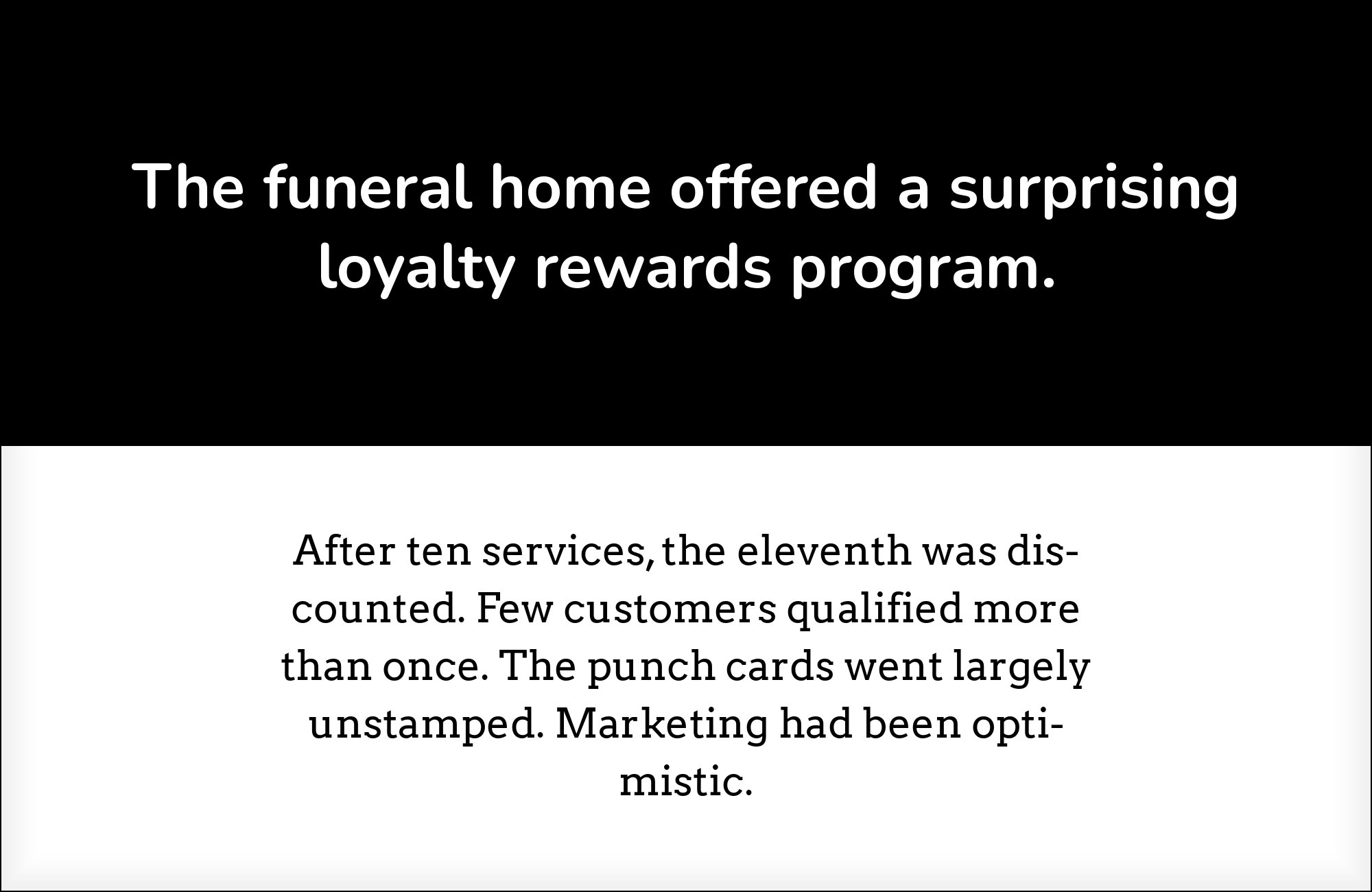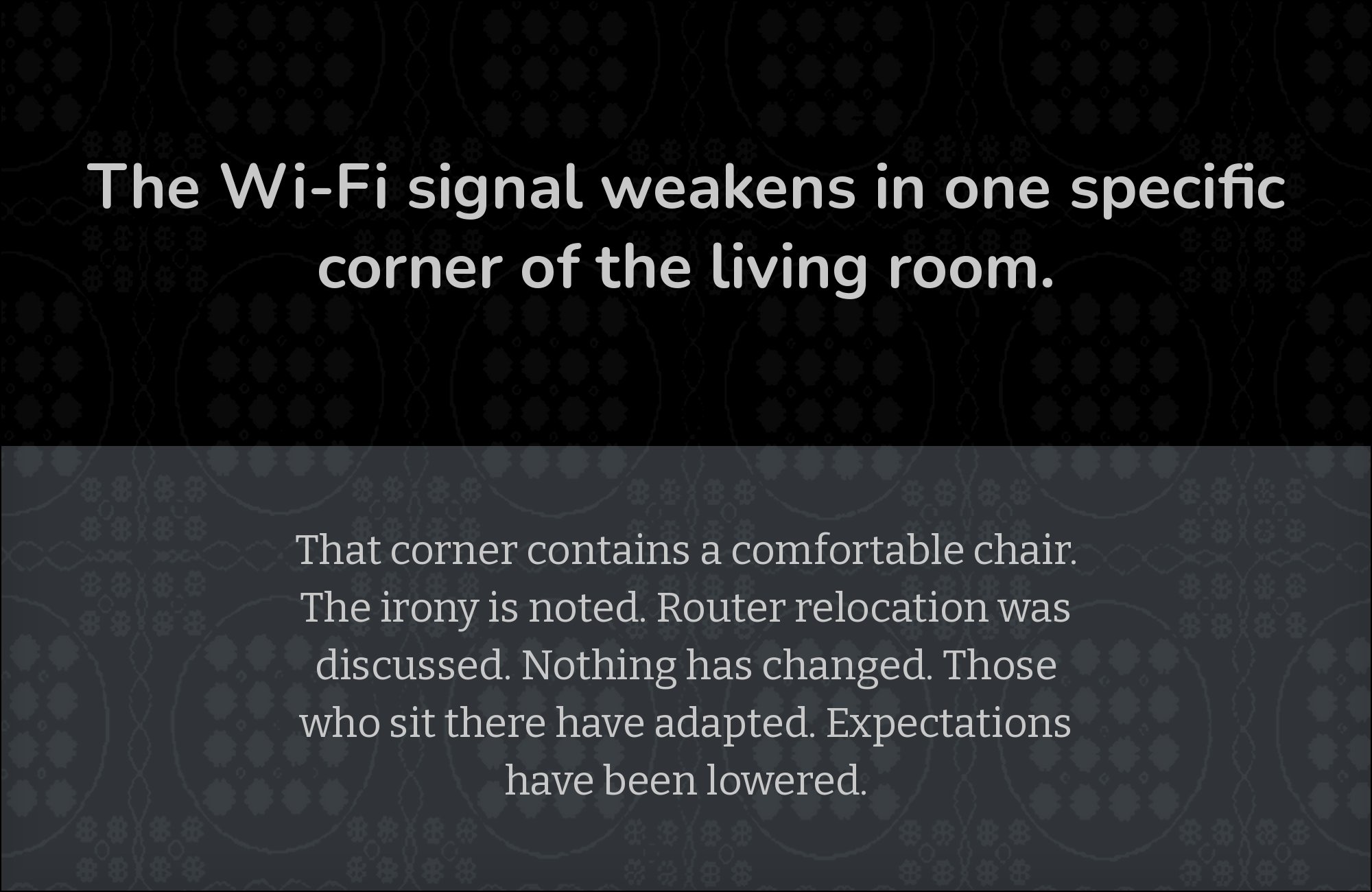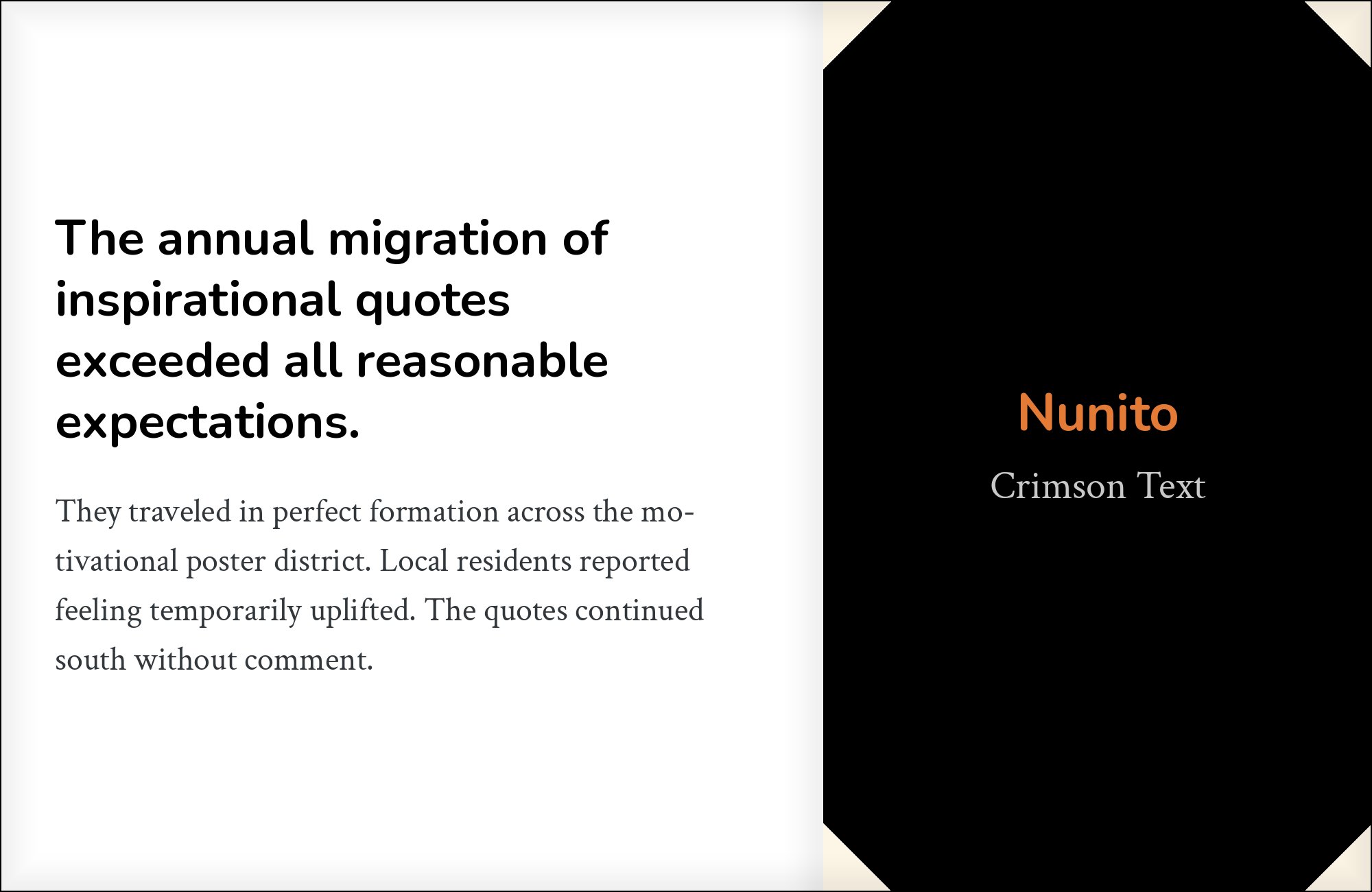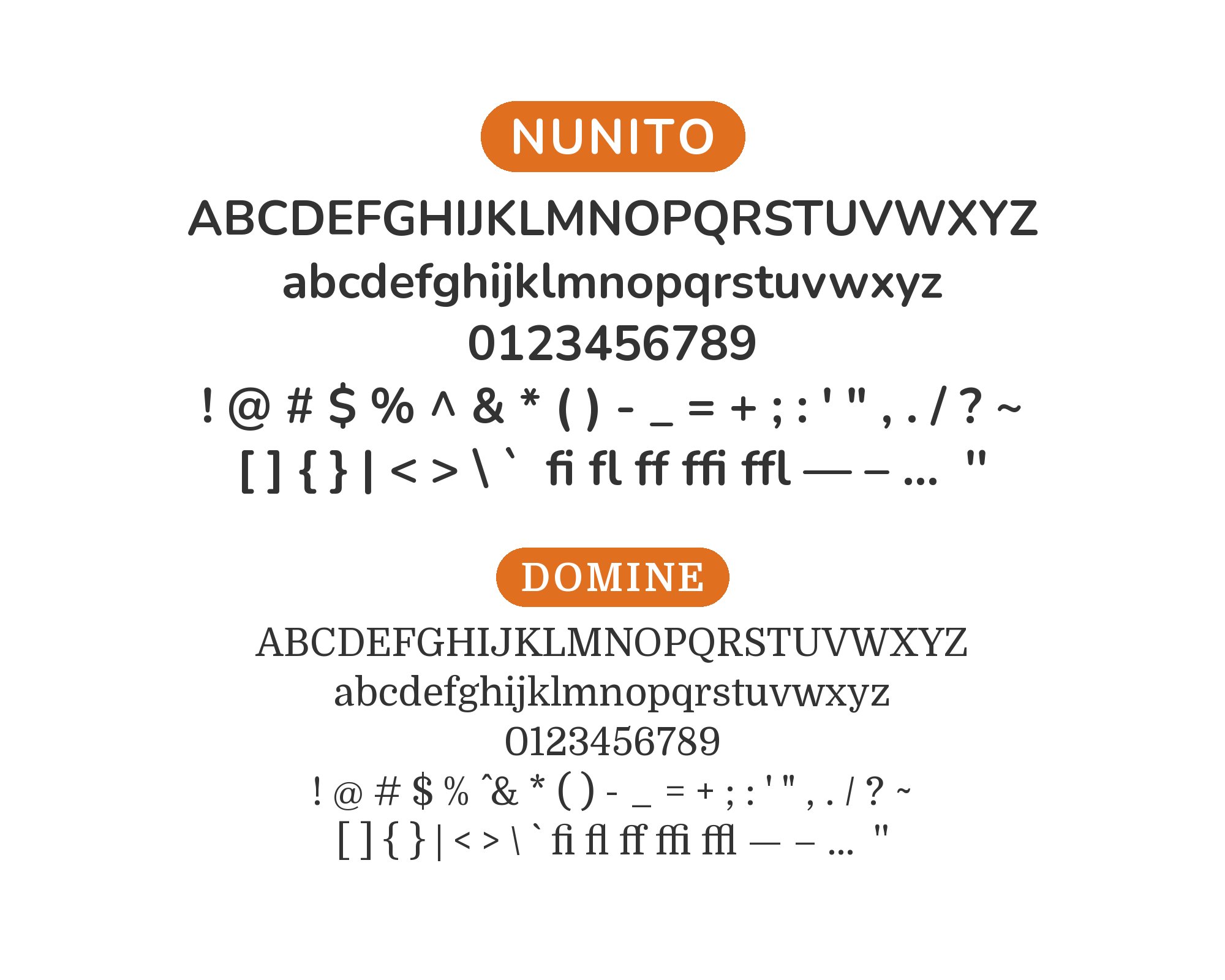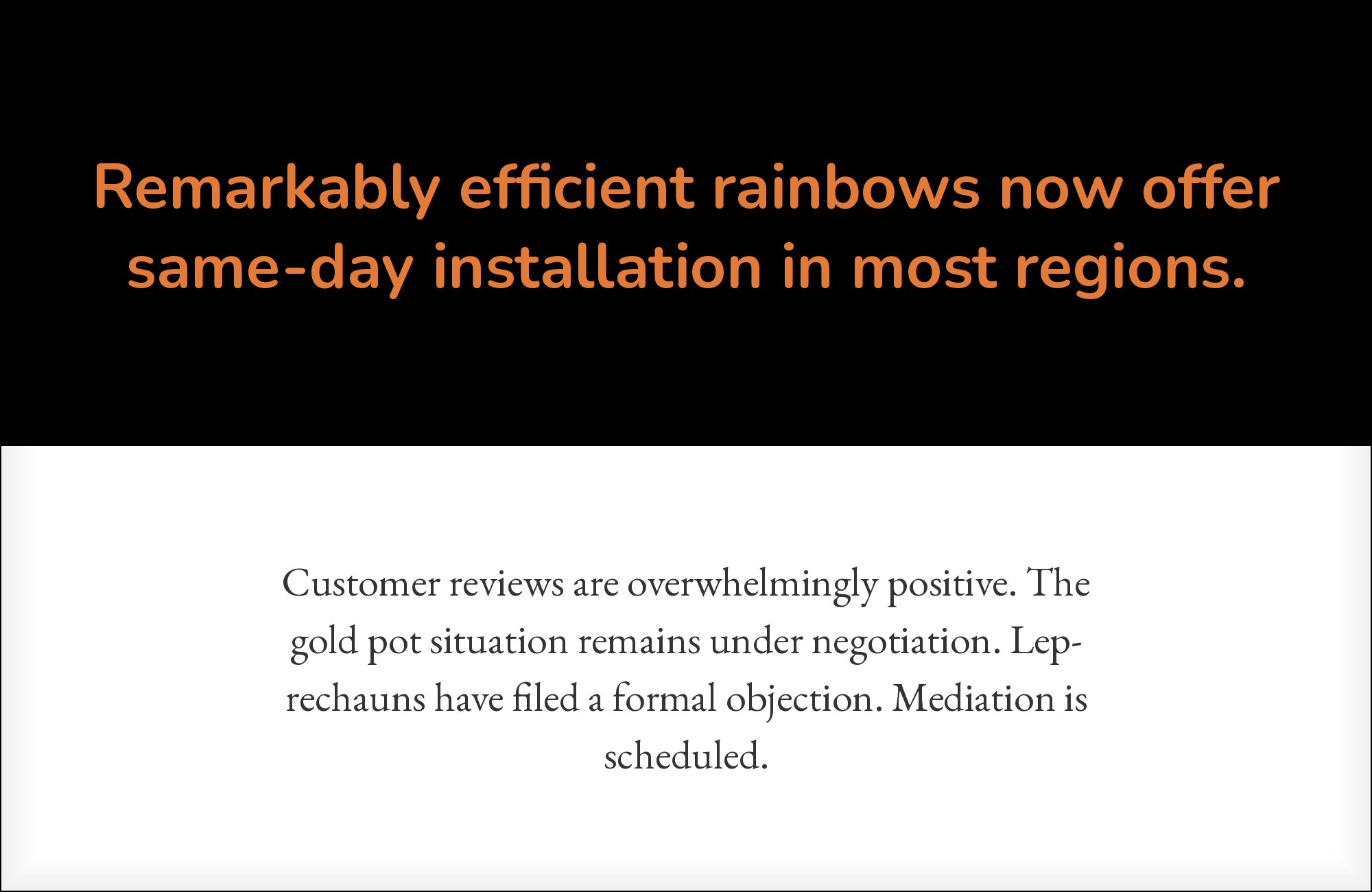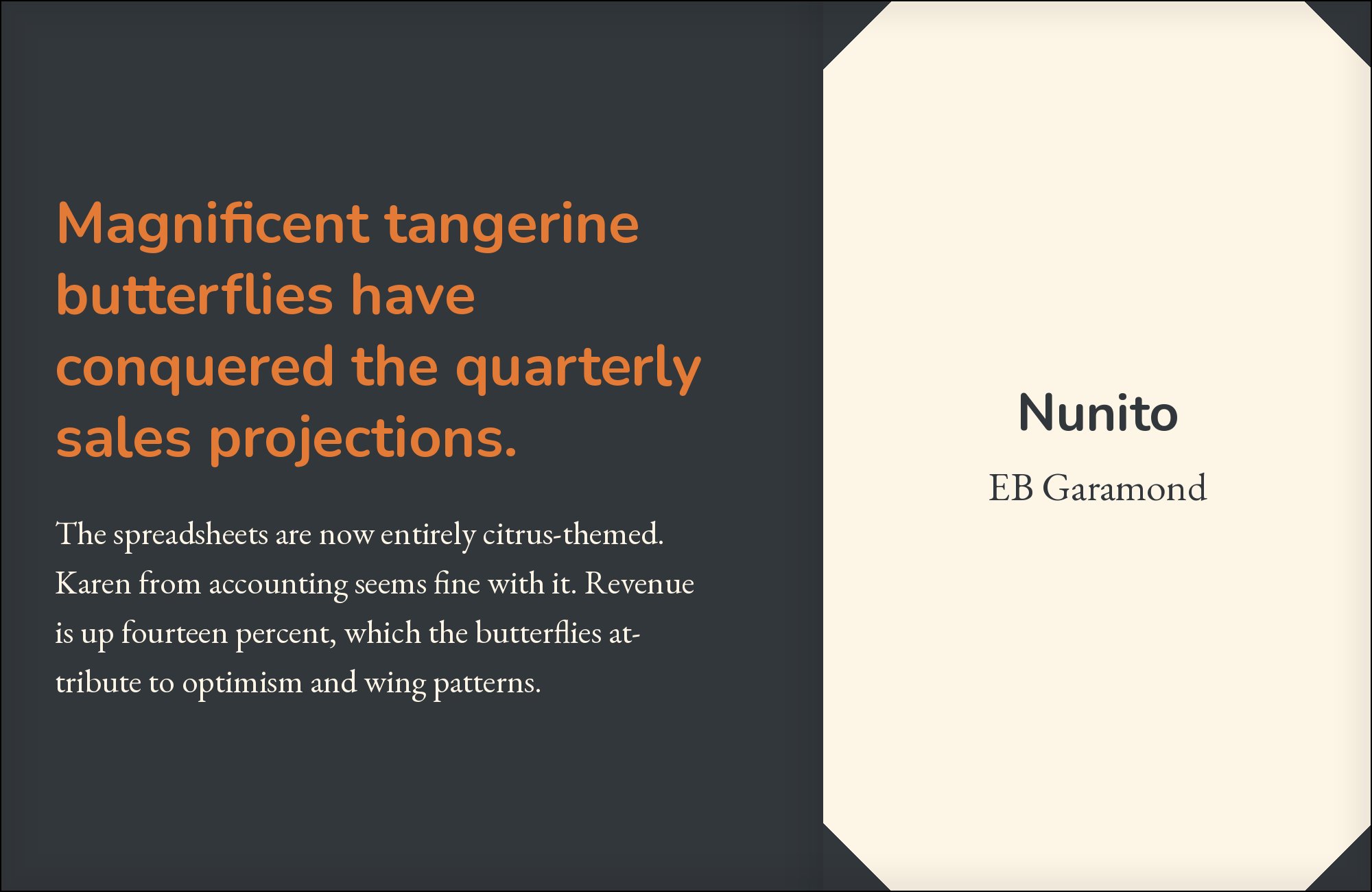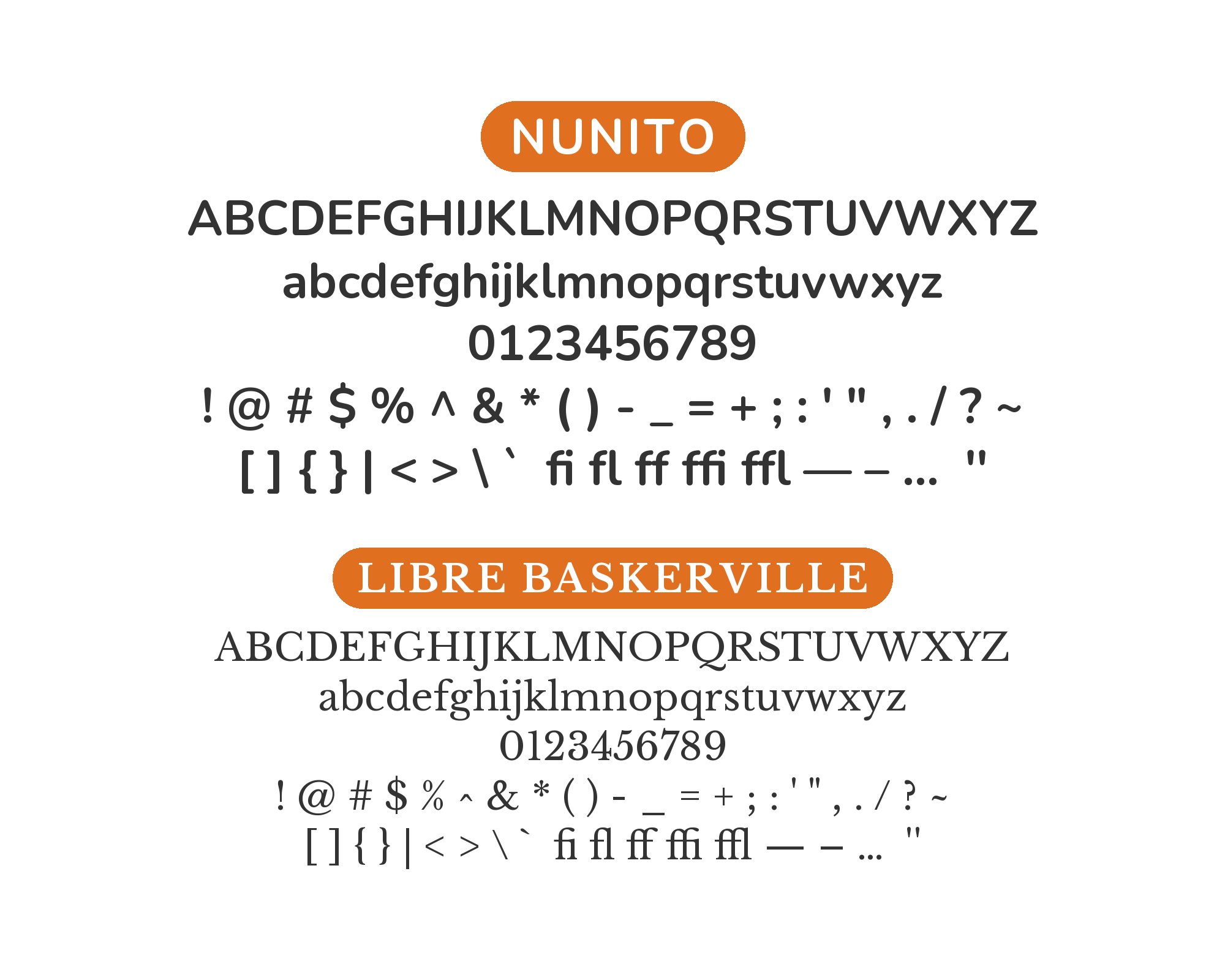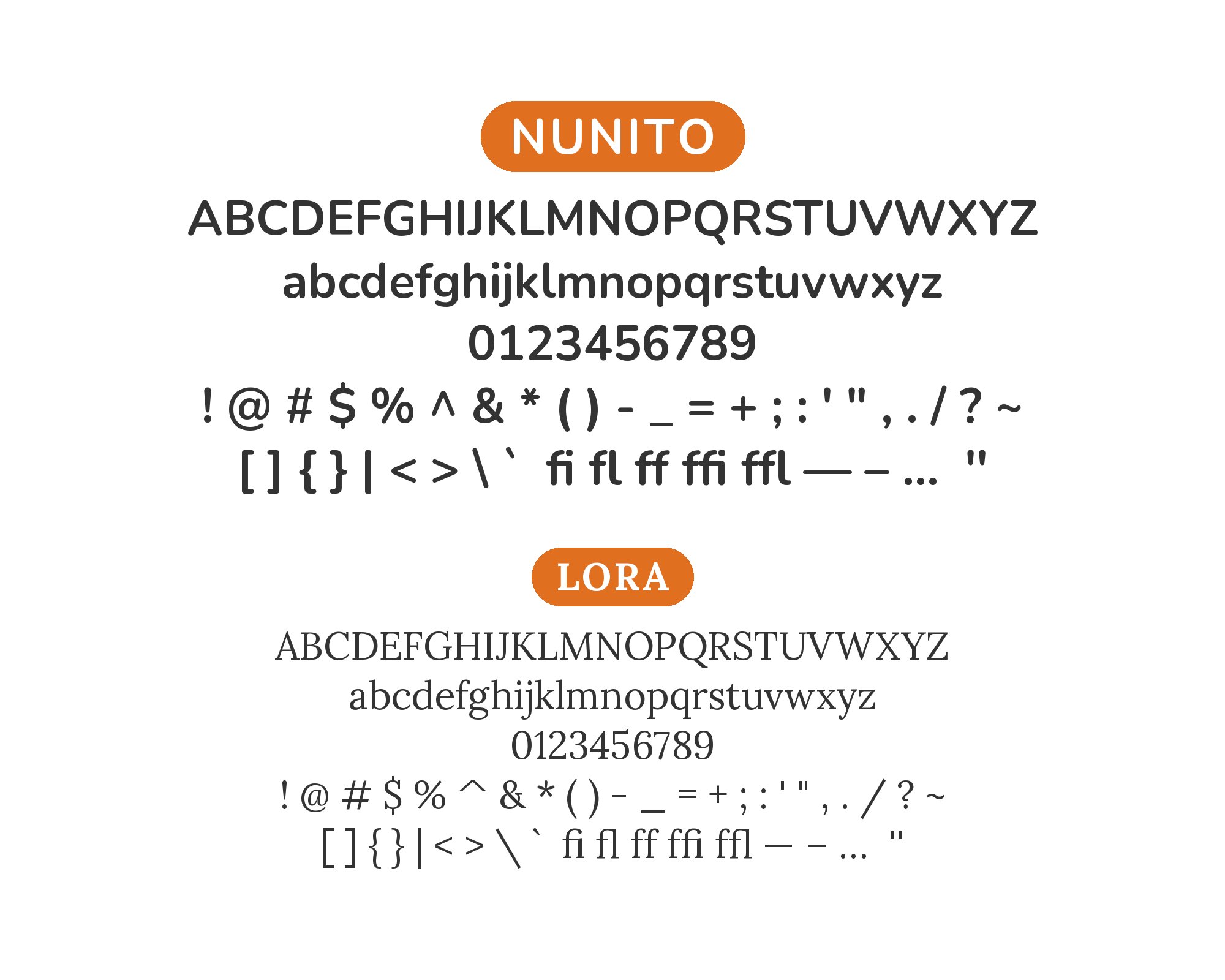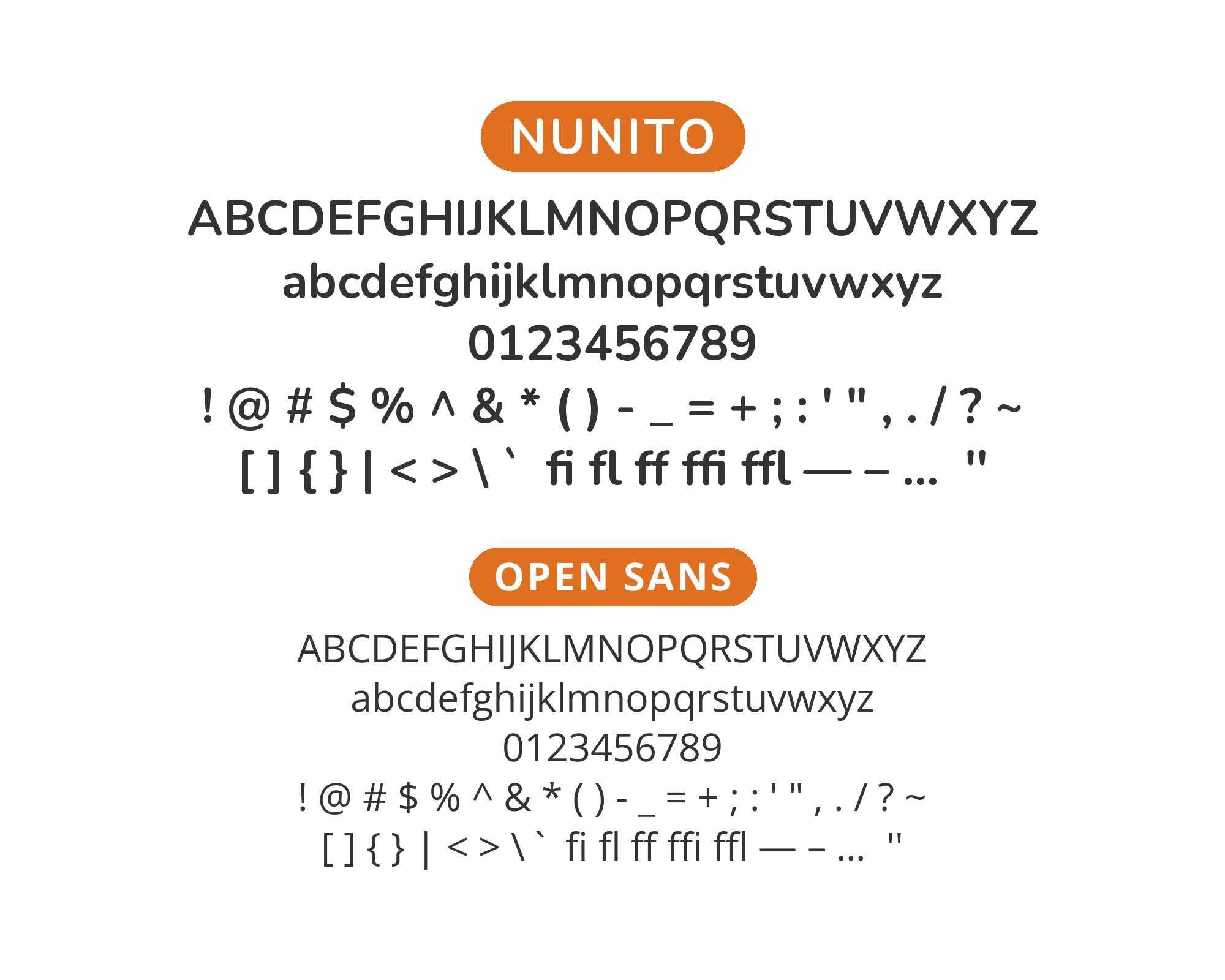
Nunito pairs great with Lora, Merriweather and Playfair Display. All 15 pairings are shown below in real rendered specimens, with the reason each one works.
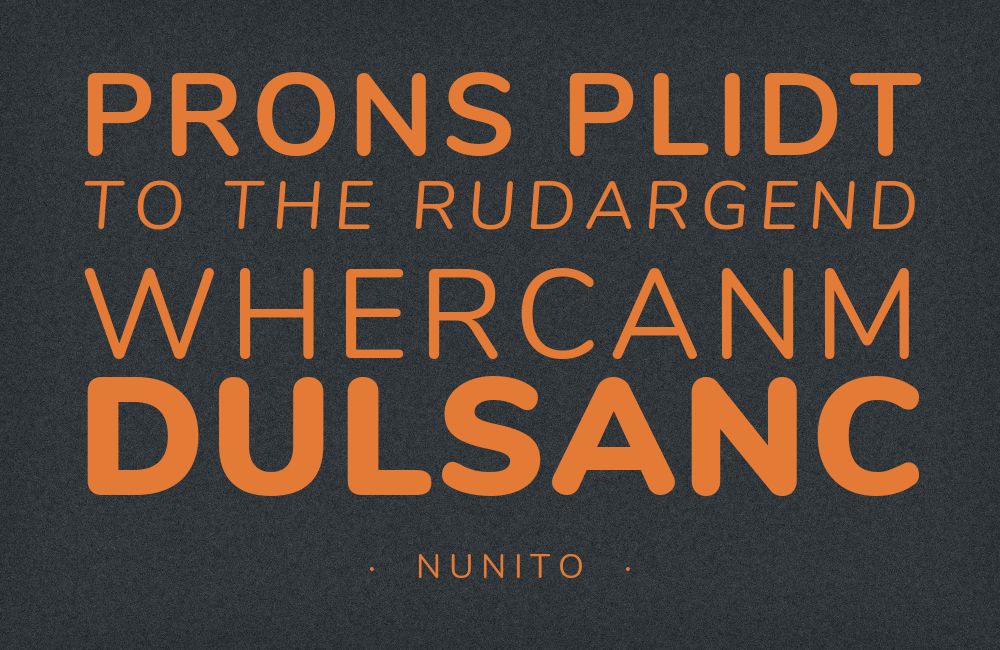
What fonts go with Nunito? Start from the terminal: every stroke ends in a soft cap rather than a flat cut, so the pairing problem is how much squared, serif, or condensed structure you put back on the page.
Nunito began as a rounded display face by Vernon Adams. Jacques Le Bailly later extended it to a full set of weights, and Google Fonts also credits Cyreal among its designers. Its defining feature is the rounded terminal: every stroke ends in a soft cap rather than a flat cut, which is what gives the face its approachable quality at any size. Underneath that softness sits a disciplined skeleton with a generous x-height, wide counters, and near-circular bowls on the o, e, and c. The flat-terminal sibling, Nunito Sans, exists for a reason — the roundness is a deliberate choice, not a default.
The challenge in pairing Nunito is that friendliness is a strong flavor. Left alone across an entire layout, those soft terminals can tip a serious subject into something that reads as juvenile. The reliable fix is structural contrast: a serif or slab with squared, deliberate detailing that reintroduces authority without arguing with Nunito’s warmth. The second consideration is optical weight matching — Nunito’s large lowercase means many classical serifs will look small beside it unless you size them up. The companions below each bring something back to the conversation.
1. Lora
Lora is the first font to try and often the last one you need. Its brushed, calligraphic terminals carry visible ink and history, which is precisely what Nunito’s smooth geometry lacks. The two share a similar lowercase height, so transitions between headline and body never produce that jarring size mismatch. Where Nunito is uniform, Lora has modulation — thick and thin swelling through each curve. Set Lora for headlines and pull quotes, Nunito for body and interface text. The result reads warm without reading soft, which is the exact balance most content sites are looking for.
Merriweather was designed for comfortable reading on screens. Its large x-height gives its body text a firm presence beneath Nunito headlines. Merriweather contributes sturdy bracketed serifs and slightly condensed letterforms, giving titles a compact structure above Nunito’s rounded supporting copy. This is the pairing for content that must stay readable on a phone at arm’s length: education platforms, help documentation, long-form explainers. Nothing here is fashionable, and that is the point. Our Everbright’s brand guide uses Merriweather for titles and Nunito for eyebrow labels. The combination has staying power.
3. Playfair Display
Maximum tension, deployed carefully. Playfair Display brings hairline serifs and dramatic thick-thin contrast drawn from 18th-century Transitional models, and against Nunito’s uniform rounded strokes the difference is stark. That contrast is the entire value — and the entire risk. Playfair needs room, so set it at 40px and above where the hairlines survive rendering; anything smaller and they thin into nothing. Nunito then handles every supporting role beneath it. Use this for lifestyle brands, boutique studios, and wedding or event work where a little drama is the assignment.
Bitter by Sol Matas is a contemporary slab built specifically for screen reading, and its squared serifs answer Nunito’s round terminals directly — geometry against geometry, just resolved differently. The pairing produces a distinctly modern editorial feel without reaching for anything classical. Bitter’s sturdy stems hold up in bold weights where more delicate serifs would collapse, making it dependable for headlines that need to shout. Reverse the roles if you like: Bitter body text under Nunito headings works nearly as well, which is unusual and worth knowing.
5. Source Serif 4
Sometimes the right companion is the one that refuses to compete. Source Serif 4 is a clean transitional serif with restrained detailing and no strong period accent, and that neutrality lets Nunito set the entire tone of a page. The stroke weights sit close enough that mixed paragraphs — a serif pull quote inside sans body copy — hold together without visible seams. This is the professional, low-risk choice for corporate reports, product documentation, and anywhere the typography should be invisible and the content should not.
6. Domine
Domine was drawn by Impallari Type for body text on the web. That focus makes it an unusually reliable partner. Its serifs are sturdy and slightly slabbed, giving paragraphs a solid gray color that anchors Nunito’s lighter, airier headlines above them. There is no fussiness to manage and no rendering fragility to design around. If you want a serif body font and you do not want to spend the afternoon testing sizes, start here and you will likely stop here.
7. Crimson Text
For long reading, warmth beats novelty. Crimson Text draws on old-style models with diagonal stress and gently bracketed serifs, producing text that invites you to settle in. Against Nunito the relationship is complementary rather than confrontational — both fonts are fundamentally friendly, they simply arrive at it from opposite centuries. If its body text looks small beside Nunito, size it up a step to restore balance. Ideal for literary sites, essay collections, and publishers who want approachable rather than austere.
Junior work is now a prompt. The biggest profit center in your studio is vanishing.
How to fix this?
Find Out How8. PT Serif
PT Serif includes Western, Central European and Cyrillic character sets, plus the characters of every title language in the Russian Federation. Beside Nunito, its traditional serif structure makes the pairing feel deliberate instead of accidental. PT Serif is traditional without being precious — it carries just enough serif authority to formalize a page, and none of the delicacy that would force you to baby it at small sizes. A Bradley University design presentation sets PT Serif for display headings and Nunito for body text. This is a strong default for news, civic, and institutional work where clarity outranks personality.
9. Libre Baskerville
Drawn wide and open specifically for web body text, Libre Baskerville shares Nunito’s relaxed, unhurried color on the page. Both fonts take up space and neither apologizes for it. The transitional serif detailing brings classical credibility while the generous set width keeps the reading experience comfortable rather than dense. Expect fewer words per line than with Merriweather, so give this pairing a wider measure and looser leading. Excellent for essays, book-adjacent sites, and any layout with enough whitespace to let both fonts breathe.
10. Arvo
Arvo is a geometric slab by Anton Koovit, and geometric is the operative word — it is built from the same circular and rectangular logic underpinning Nunito, just resolved with squared serifs instead of rounded caps. That shared construction makes the pairing feel like members of the same family. Arvo runs heavy, so it earns its keep in headlines, callouts, and numbers rather than paragraphs. Reach for it when a design needs to feel sturdy and built, not soft and welcoming.
11. Roboto Slab
When you need weight without personality, Roboto Slab is the answer. It carries the neutral skeleton of the Roboto family with slab serifs attached, which means it adds structural contrast to Nunito while contributing almost no stylistic opinion of its own. That restraint is genuinely useful in product design, where the interface should not editorialize. Set Roboto Slab for section headers and data labels, Nunito for everything else. The combination reads as designed rather than decorated, and it scales cleanly across an entire application.
12. EB Garamond
The widest gap on this list, and the most rewarding when it lands. EB Garamond revives sixteenth-century punchcutting with delicate strokes, small x-height, and pronounced calligraphic detail — everything Nunito is not. Placed together, each font makes the other more visible: the Garamond looks more crafted, the Nunito looks more modern. Because the x-heights differ sharply, size EB Garamond noticeably larger than instinct suggests or it will read as an afterthought. Jukebox shows Nunito with EB Garamond in a pairing specimen. Reserve this for cultural, editorial, and gallery work where the contrast is the message.
13. Cardo
Cardo was built for scholarly typesetting, with the extended character support that classicists and linguists actually need. Beside Nunito it performs a specific job: it makes a friendly page credible. The serif detailing is understated and slightly archaic, lending gravity to subjects that Nunito alone would render too casually. Use Cardo for body text in academic, historical, or reference contexts, and let Nunito handle navigation, labels, and interface furniture. The Denizen Co. includes Cardo and Nunito in its wedding website pairings. The division of labor keeps the site approachable to navigate and serious to read.
14. Open Sans
Not every project wants a serif. When a design calls for an all-sans system, Open Sans is the most dependable partner Nunito has. Its flat terminals and slightly narrower forms provide just enough differentiation to signal hierarchy without introducing a second voice. The two share humanist proportions and comparable x-heights, so the system reads as one coherent family. Nunito takes headlines where its roundness registers as brand personality; Open Sans takes body copy where neutrality is the more valuable trait.
15. Oswald
The opposite of Nunito in every measurable dimension. Oswald is narrow, tall, tightly spaced, and flat-terminaled, which is exactly why it works — narrow and vertical against round and wide is a contrast the eye reads instantly. Oswald compresses a long headline into a single decisive line, then hands the page to Nunito for comfortable reading beneath. Creatopy pairs Oswald Bold with Nunito Semibold in its font guide. This is the pairing for landing pages, event sites, and anything with a hero section that needs to land hard before the friendliness takes over.
Nunito’s rounded terminals are a strong flavor. The companions that work keep squared, deliberate detailing on the page, and they get sized up when their x-height sits below Nunito’s generous lowercase.